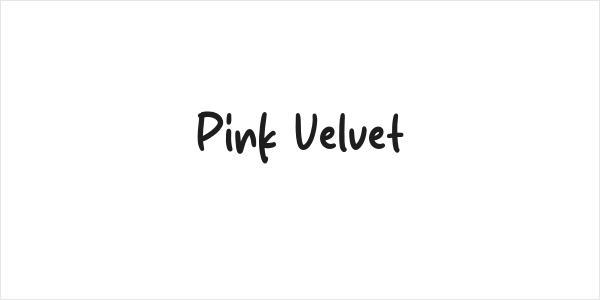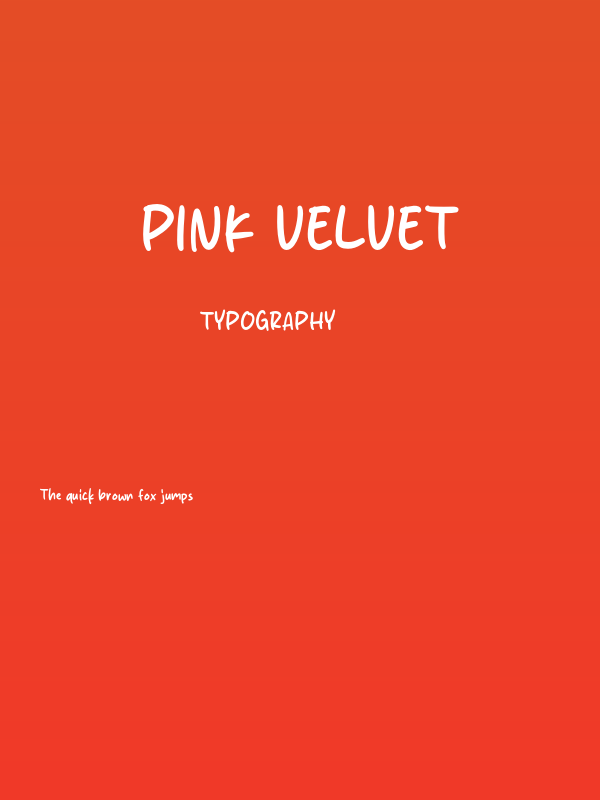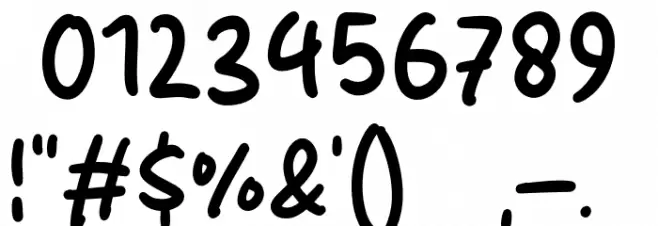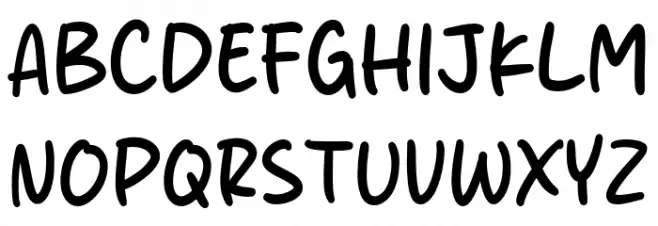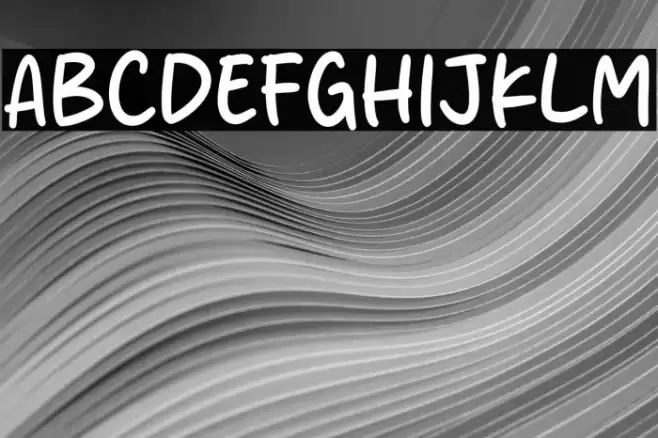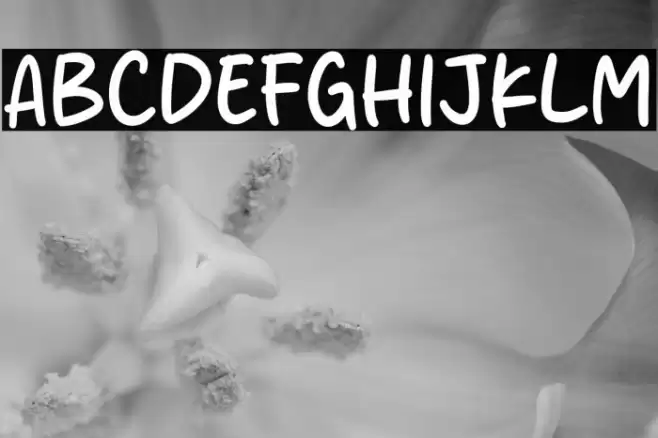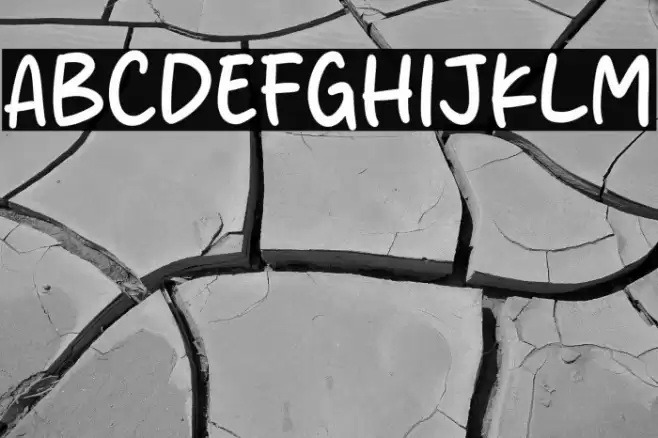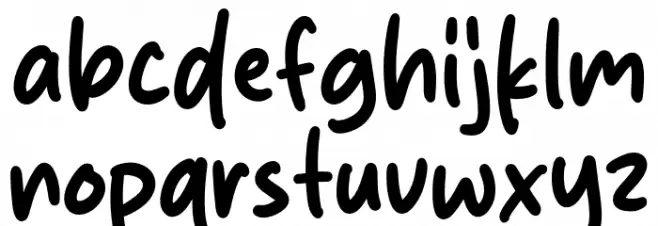
Pink Velvet Font
Pink Velvet Description
A playful, casual handwritten typeface with rounded terminals and consistent stroke width, giving it a friendly and approachable appearance. The characters are slightly irregular, mimicking natural handwriting.
| Overall Style | Casual, Playful, Friendly |
| Use Case | Headlines, Short text, Logos, Informal communication |
| Proposed Projects | Greeting cards, children's books, informal posters, social media graphics, branding for playful or creative businesses. |